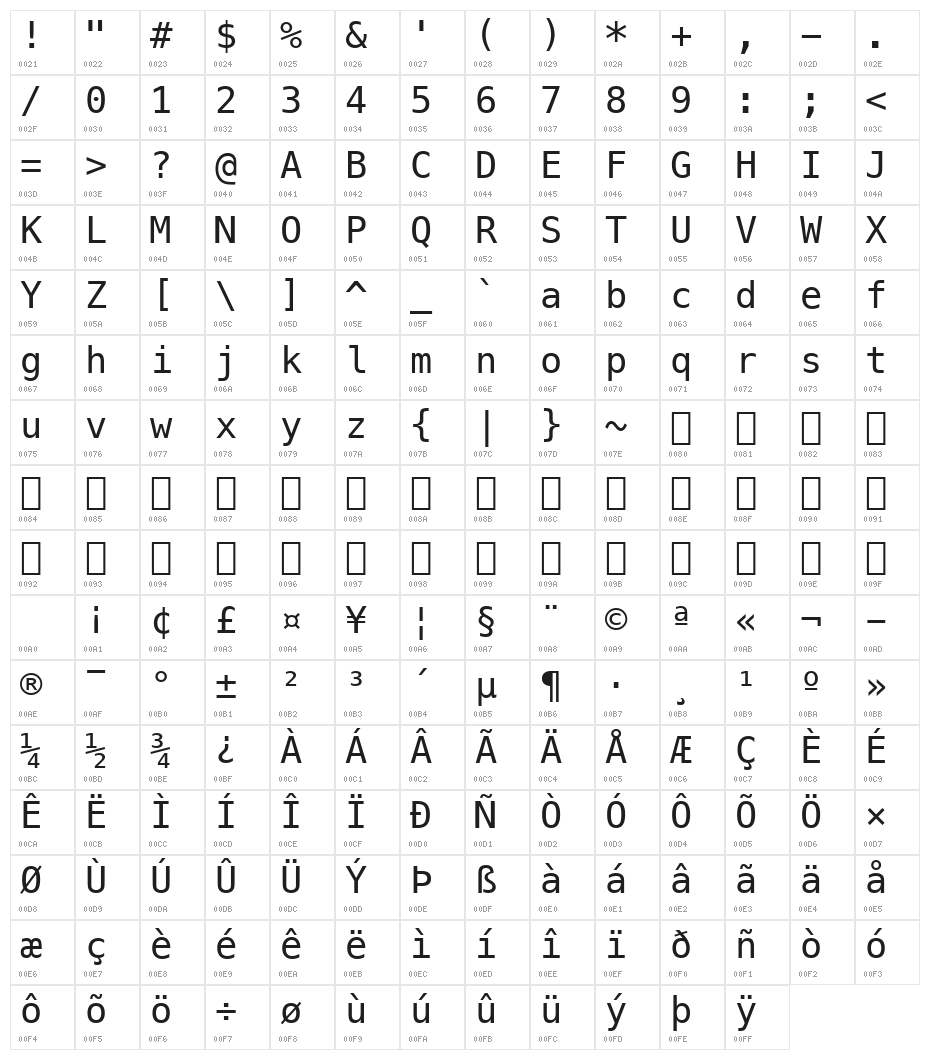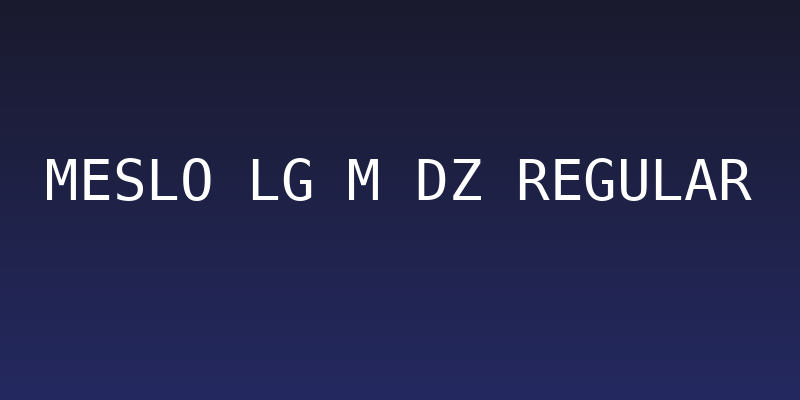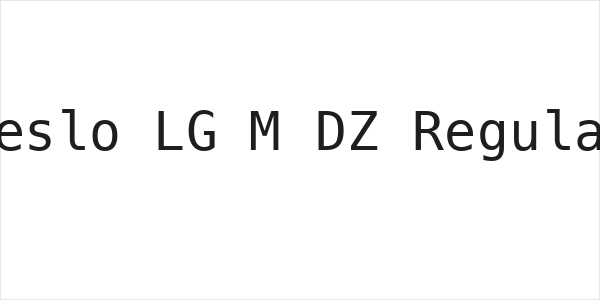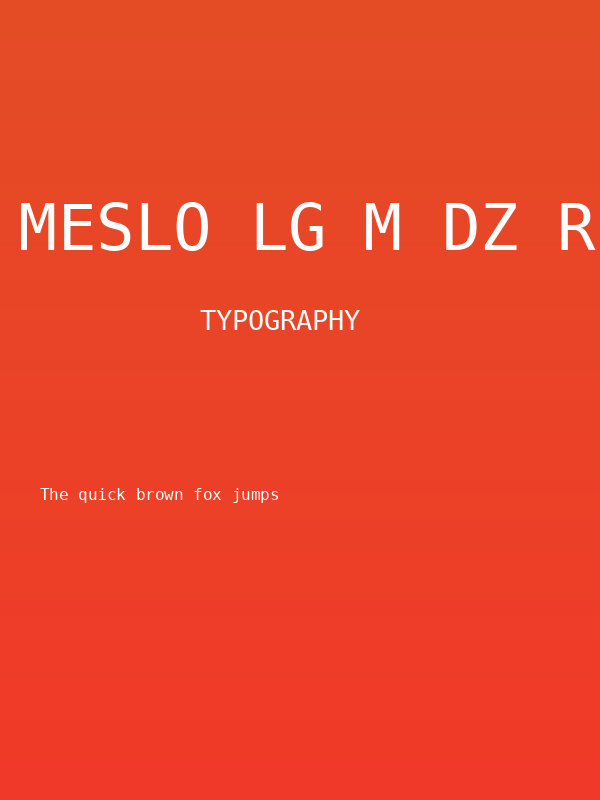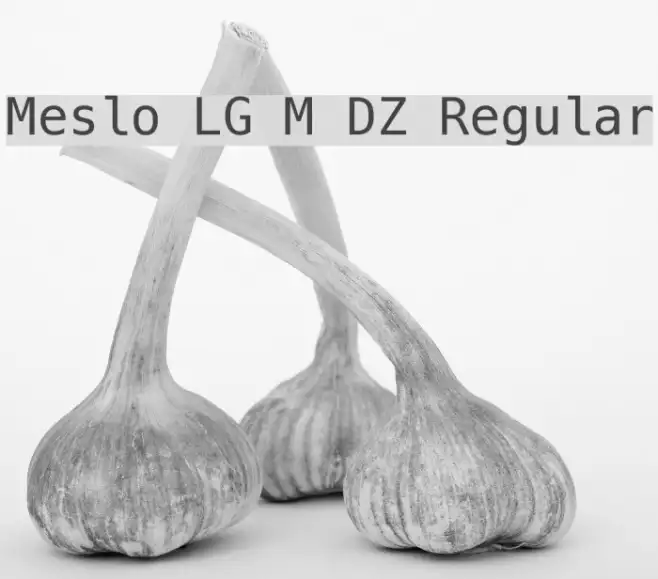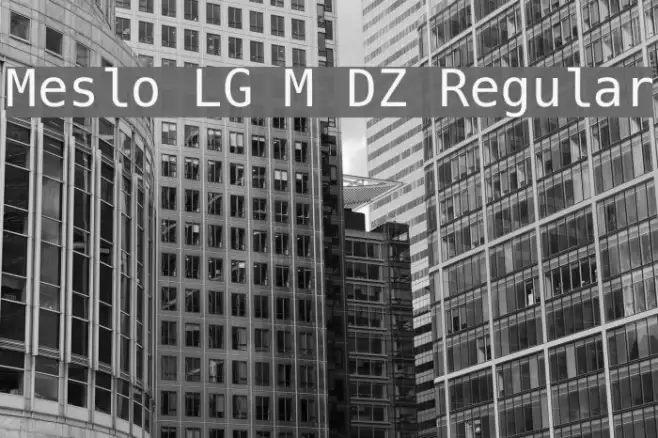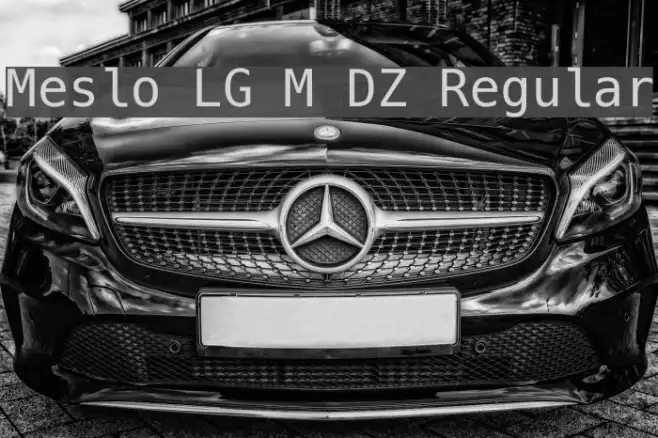
Meslo LG M DZ Regular Font
Meslo LG M DZ Regular Description
This typeface is a monospaced font characterized by its clean and modern appearance. Each character occupies the same amount of horizontal space, making it ideal for coding and tabular data. The design is straightforward, with a focus on readability and clarity. The strokes are consistent in weight, providing a balanced and uniform look across all characters. The font's simplicity and lack of decorative elements contribute to its functionality, making it a popular choice for developers and technical documentation.
| Use Case | Headlines, Body text, Logos, Coding |
| Proposed Projects | Perfect for coding environments, technical documentation, and any project requiring precise alignment of text, such as spreadsheets or data tables. |